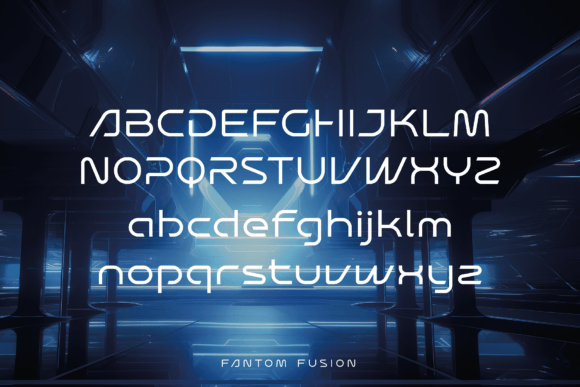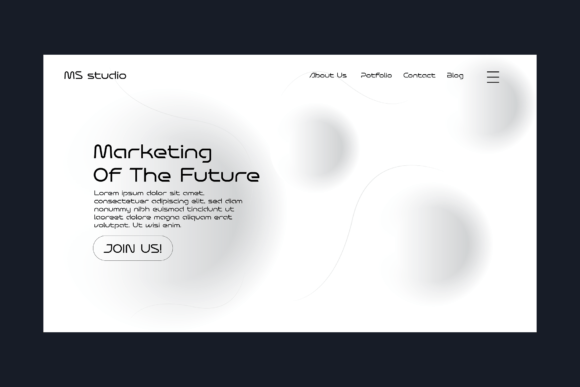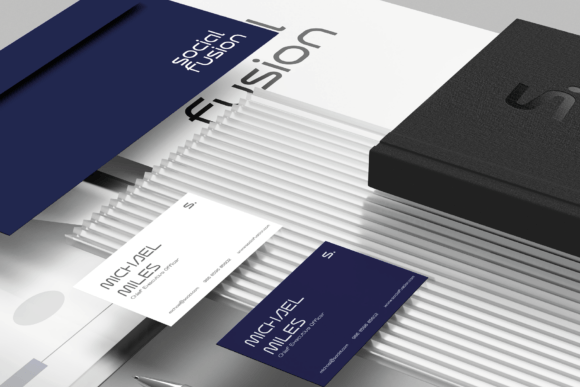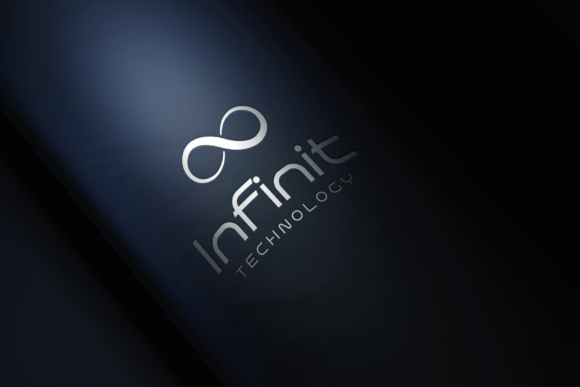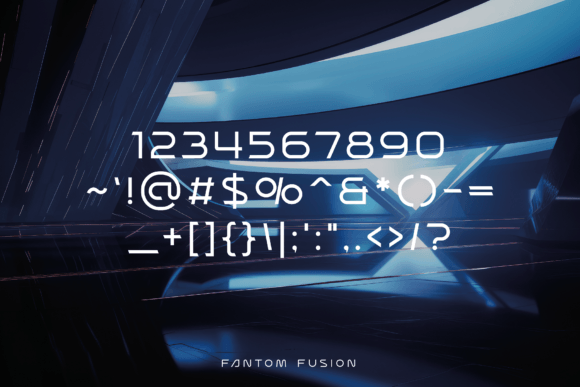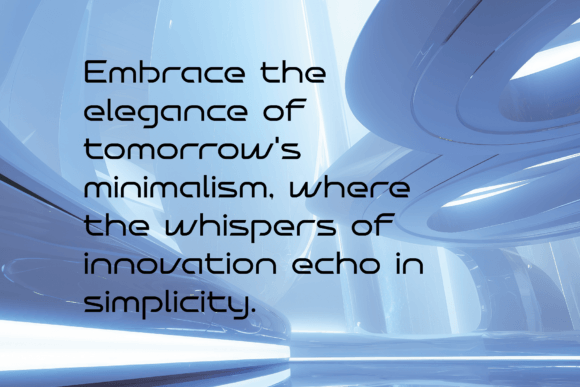
Fantom Fusion Font: A Revolutionary Typeface for the Digital Age
In the ever-evolving world of typography, a new star has emerged, shining brightly with its unique blend of style and functionality. Fantom Fusion Font is a game-changing addition to the typographic landscape, embodying a vision of the future in its very form. This typeface seamlessly merges clean aesthetics with futuristic minimalism, creating a visual harmony that is both striking and soothing to the eye.
The Essence of Fantom Fusion
At its core, Fantom Fusion is an amalgamation of sleek and uncluttered design elements, carefully crafted to transcend the conventional boundaries of typography. It is not just a collection of letters on a page; it is an embodiment of innovation and modernity, specifically designed for the digital age and beyond. Each character in Fantom Fusion is meticulously detailed, achieving a perfect balance between artistic beauty and functional clarity.
The Beauty of Minimalism
The minimalist approach of Fantom Fusion is one of its most defining features. By stripping away the superfluous and focusing on the essence of each letter, this typeface showcases the beauty of simplicity. The clean and refined style of Fantom Fusion makes it more than just a typeface; it is a statement piece, perfect for brands and designs aiming to stand out with a contemporary and forward-thinking edge.
Design and Craftsmanship
Fantom Fusion’s design is a testament to the power of meticulous craftsmanship. Every line, curve, and edge has been carefully considered to ensure that the typeface is not only visually appealing but also highly legible across various mediums. Whether it’s for digital interfaces, print materials, or any other application, Fantom Fusion maintains its elegance and impact, making it a versatile tool for designers.
Applications and Use Cases
The versatility of Fantom Fusion Font makes it suitable for a wide range of applications. For digital platforms, its clean and modern aesthetic ensures that it stands out in an increasingly crowded digital landscape. For print materials, its elegant and refined style lends itself well to high-end publications, branding materials, and more. Additionally, Fantom Fusion’s legibility makes it an excellent choice for signage and other large-format applications.
Why Choose Fantom Fusion?
There are several reasons why designers and crafters might choose Fantom Fusion for their projects:
- Unique Aesthetic: Fantom Fusion offers a fresh and distinctive look that can help any project stand out.
- Versatility: Its adaptability across various mediums makes it a practical choice for a wide range of applications.
- Legibility: Despite its minimalist design, Fantom Fusion maintains high legibility, ensuring that messages are conveyed clearly and effectively.
- Modern Appeal: For brands and designs looking to convey a sense of innovation and modernity, Fantom Fusion is an excellent choice.
Fantom Fusion Font is more than just a visually appealing typeface; it is a revolutionary tool for designers and crafters. By combining clean aesthetics with futuristic minimalism, Fantom Fusion creates a new standard in typography, one that is both of the moment and forward-thinking. Whether you’re working on a digital project, a print publication, or anything in between, Fantom Fusion offers a unique blend of style, functionality, and impact that is sure to elevate your work to new heights.
As we look to the future of design and typography, Fantom Fusion stands at the forefront, embodying the principles of innovation, simplicity, and elegance. It is an exciting time for the creative community, and with typefaces like Fantom Fusion leading the way, the possibilities are endless.